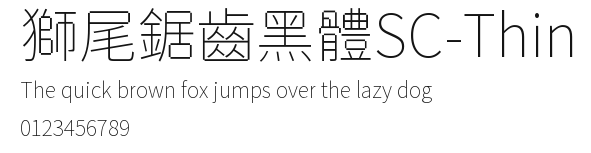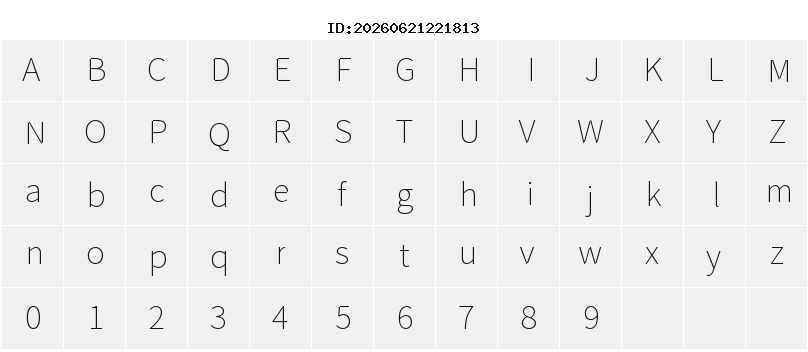
• Font Name: 獅尾鋸齒黑體SC-Thin
• Font Style: Thin
• Full Font Name: 獅尾鋸齒黑體SC-Thin
About 獅尾鋸齒黑體SC-Thin.ttf
獅尾鋸齒黑體SC-Thin.ttf is a modern, elegant sans-serif font designed for ultimate readability and visual harmony. Perfect for branding, headlines, web design, and print materials.